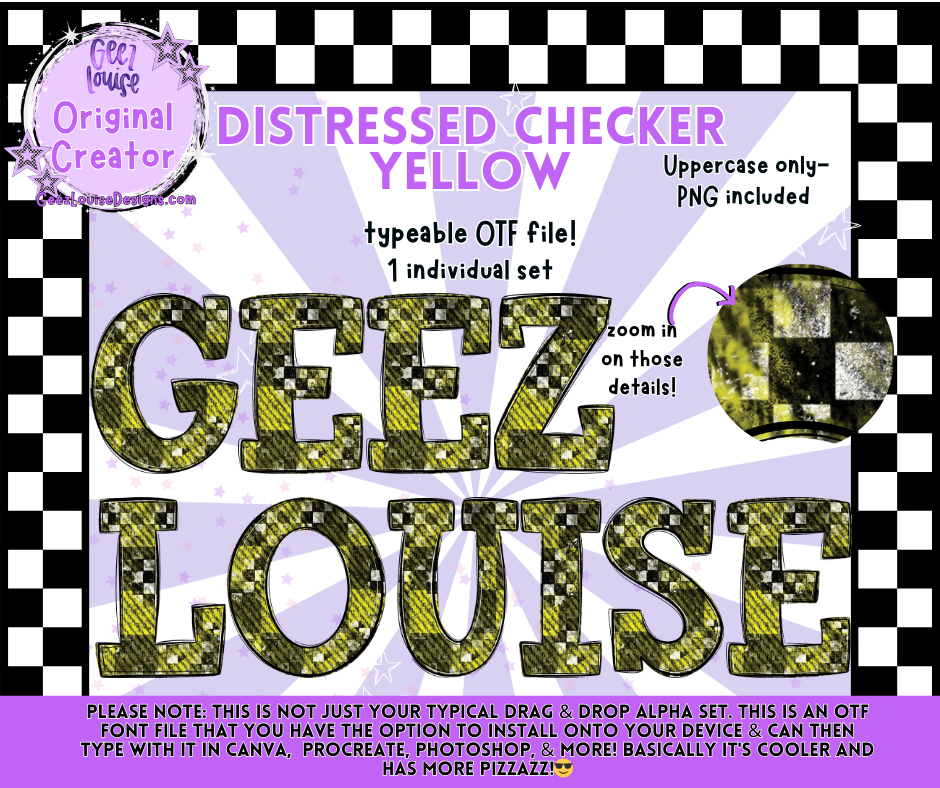
DISTRESSED CHECKER YELLOW — Typeable OTF Alpha Font + PNGs
Bright, bold, and full of energy — Distressed Checker Yellow brings that perfect mix of grunge texture and high‑impact color. This typeable OTF font adds instant personality to tees, stickers, school spirit designs, and digital products.
• Uppercase A–Z
• Distressed yellow checker textures
• Clean, crisp print‑ready edges